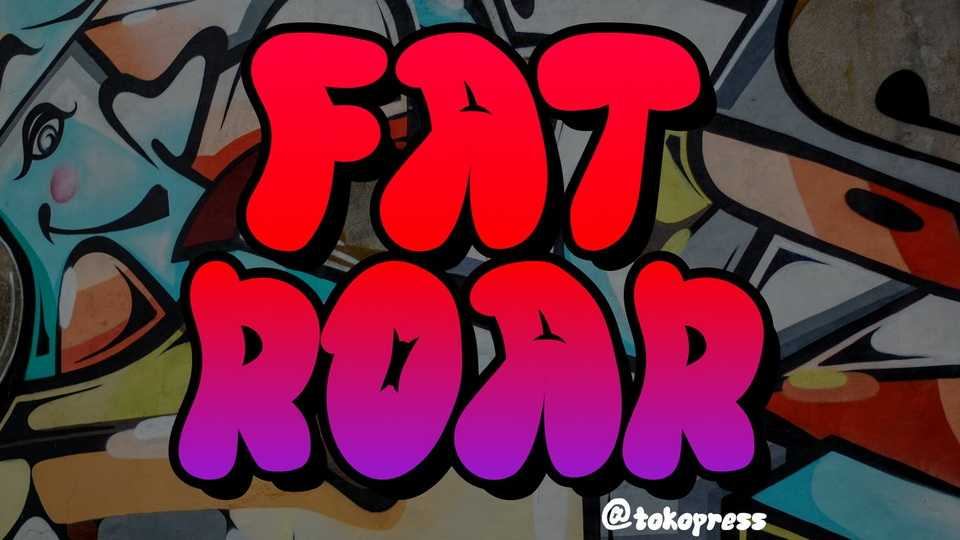
Download Fat Roar font, a cartoon graffiti typeface. The fluffy graffiti font is what you need when you want some fun and rebel in the same sentences.